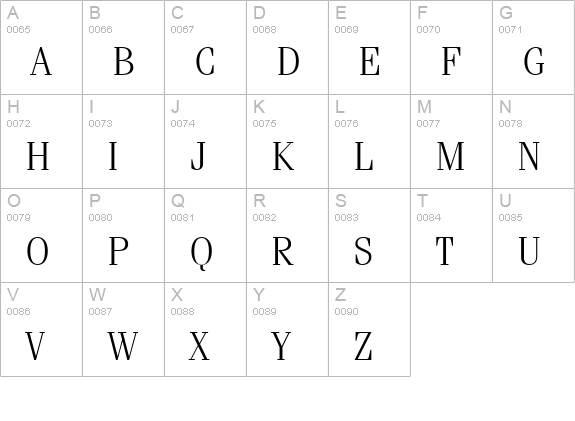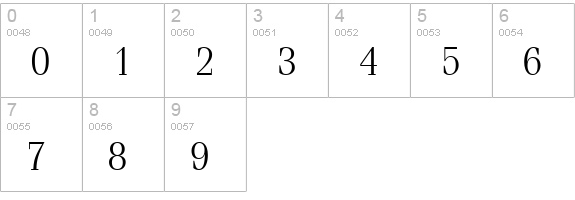
Compendium Light SSi Light is a refined, elegant variant in the Compendium typeface family \xE2\x80\x94 well suited to elegant body text, refined sub-headings, and luxury branding.
Compendium Light SSi Light font is a sophisticated and elegant typeface that exudes a sense of modernity and style. Its clean lines and subtle curves make it perfect for a wide range of design projects, from invitations to branding to editorial layouts. The light weight of this font adds a touch of delicacy and sophistication to any design. What makes Compendium Light SSi Light font even more appealing is the fact that it is available for free download at FontsMarket.com. This means that you can easily access this beautiful font and incorporate it into your projects without any cost. With its timeless design and versatility, Compendium Light SSi Light font is sure to elevate your designs and make them stand out.